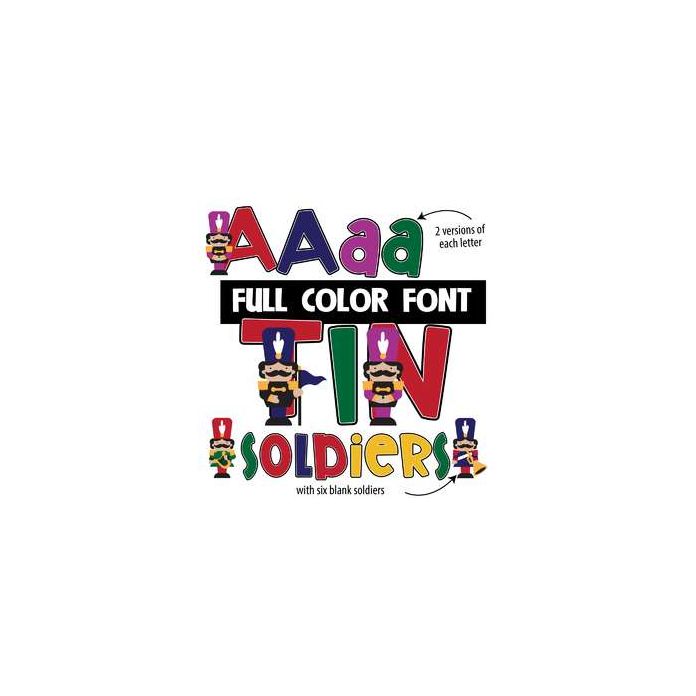
This full color font features soldiers by colorful lettering in the uppercase. There is a secondary upper and lowercase you can access through your system's character map. Also there are six soldiers without lettering you can type with the following characters: {.}.|.[,\,] This font works best for titles, displays, posters and more. Please note color fonts will show as black in non compatible programs. This font type is compatible with Silhouette Studio.